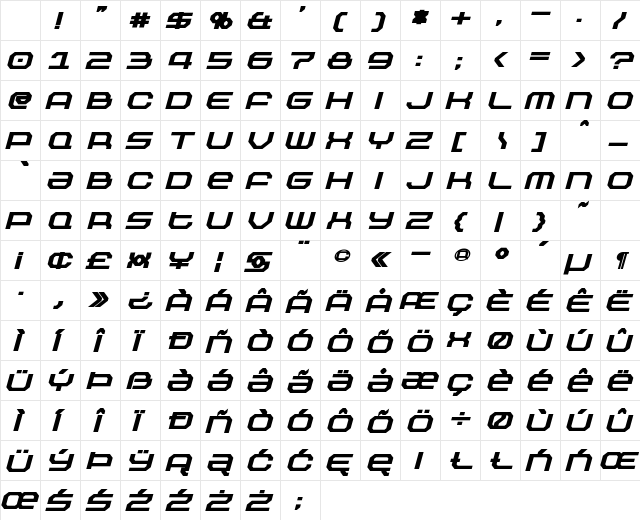
Outland Black is a composed and adaptable typeface that performs quietly and consistently across a wide range of design contexts. The slanted form adds forward momentum and visual energy.